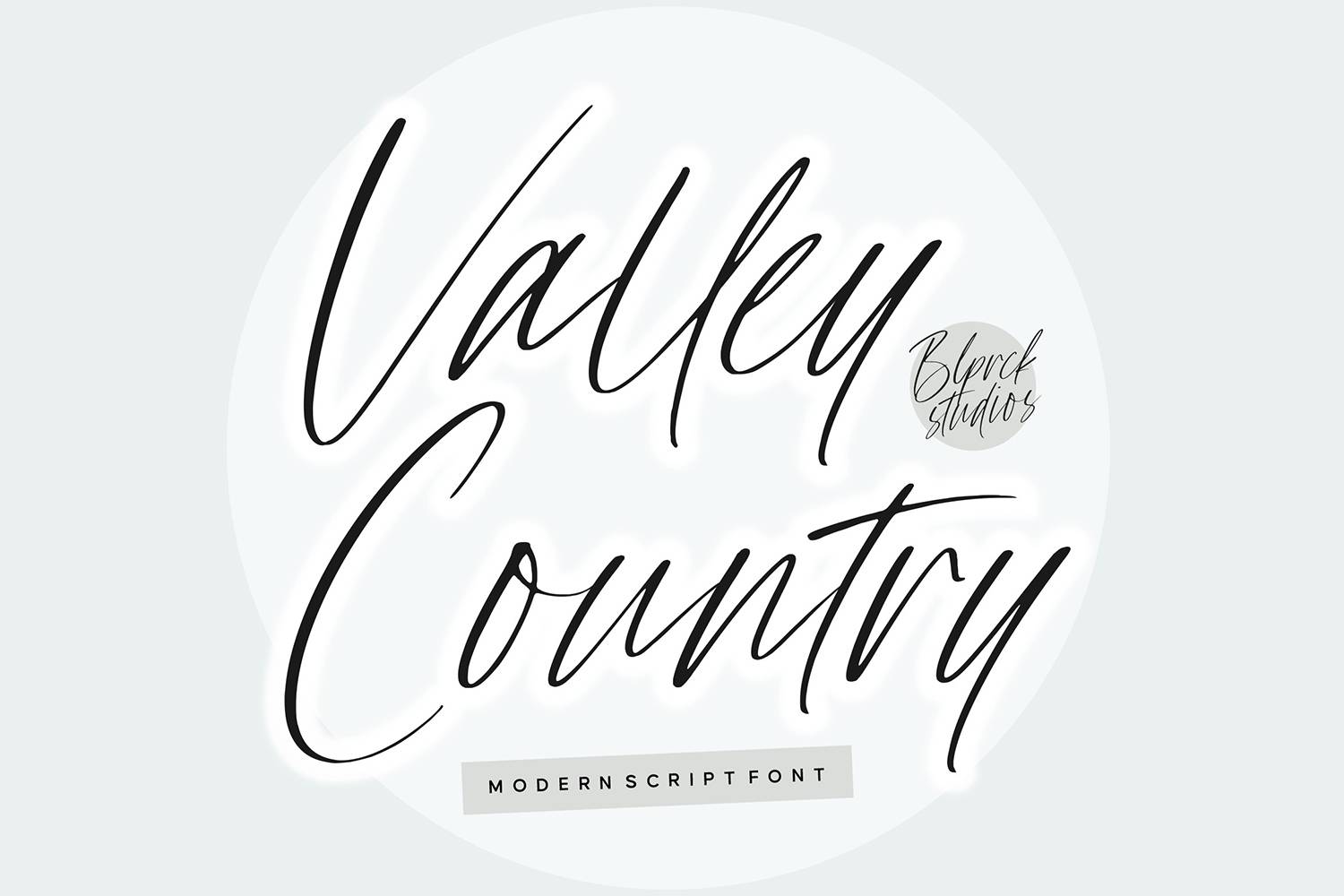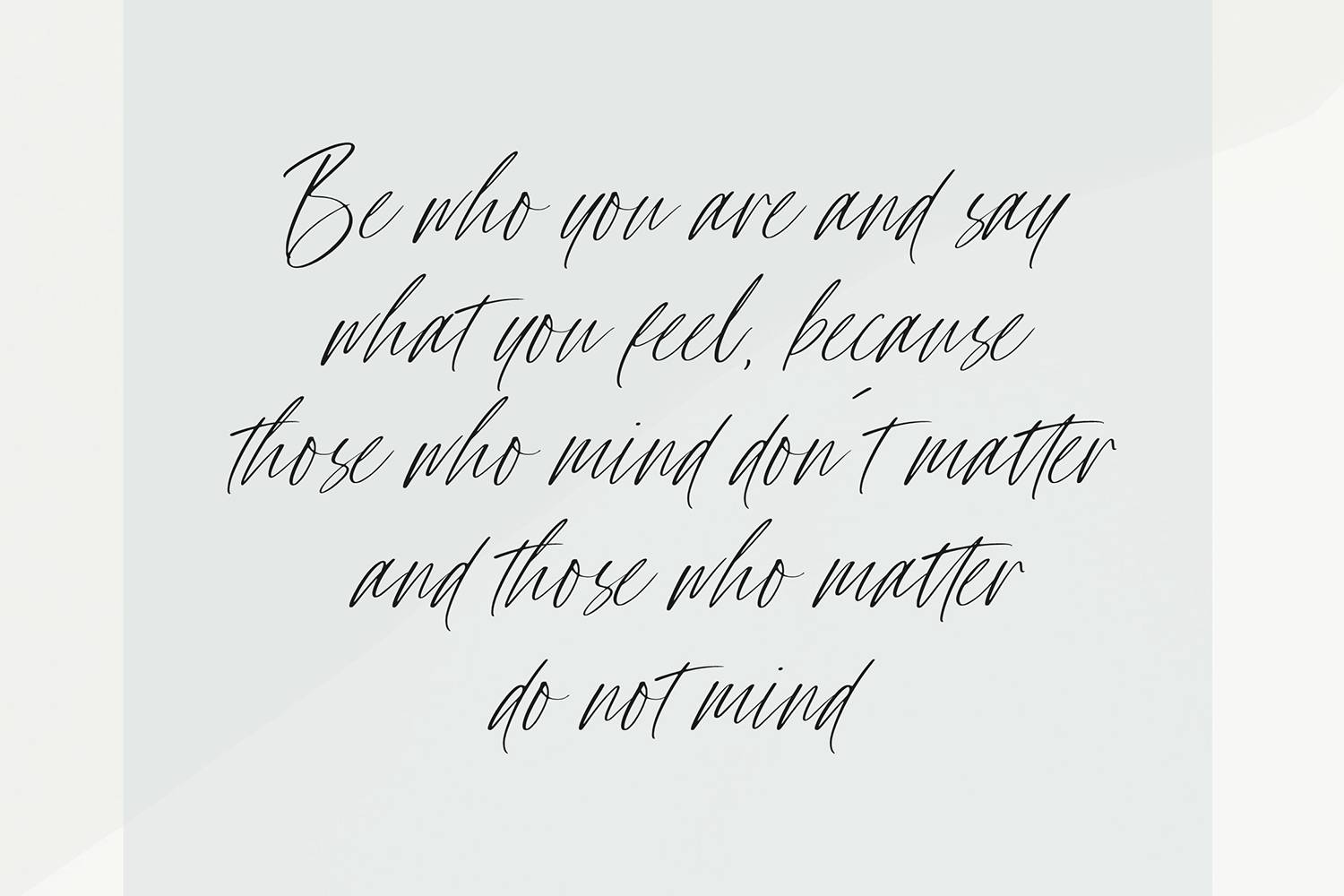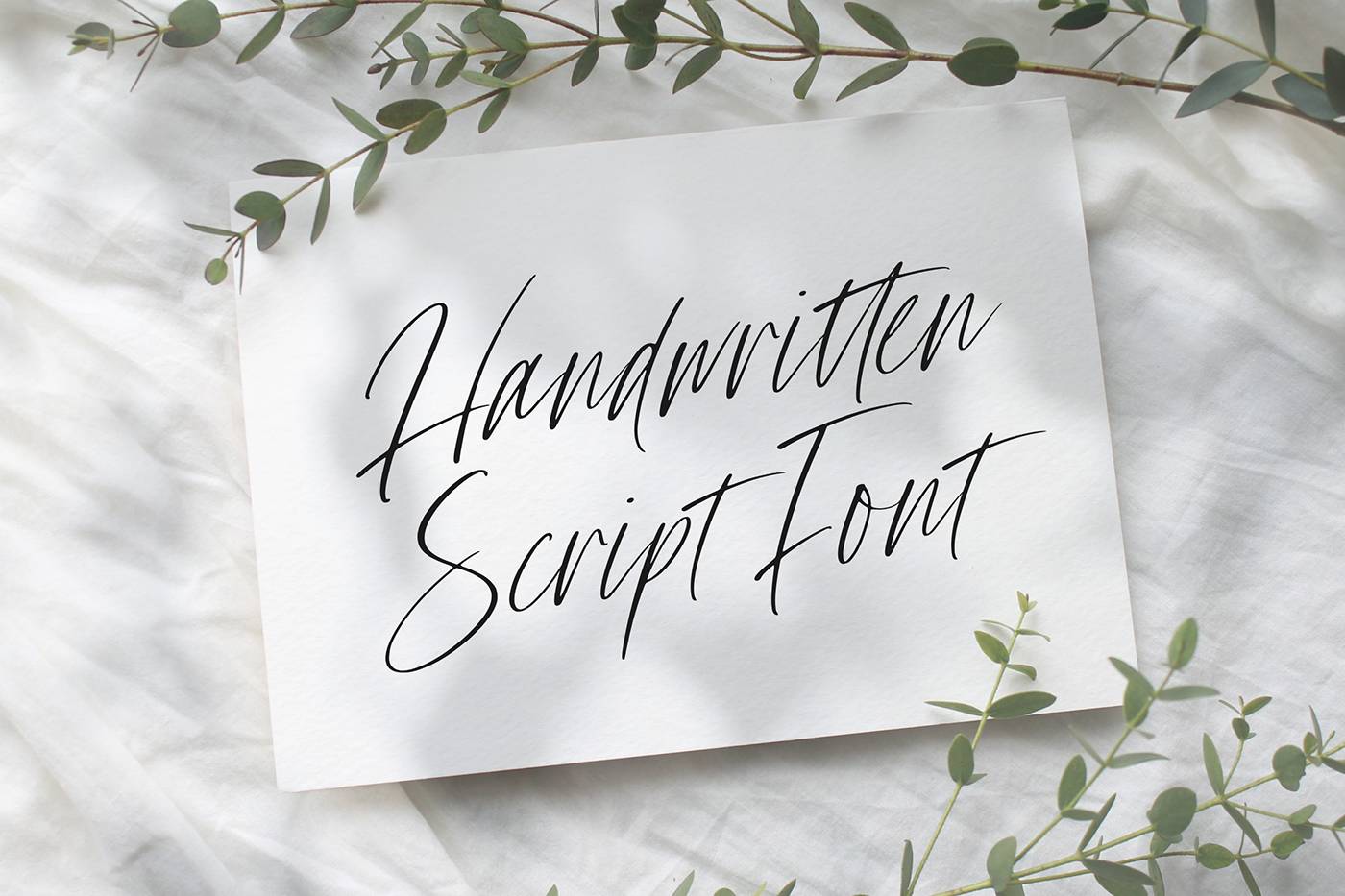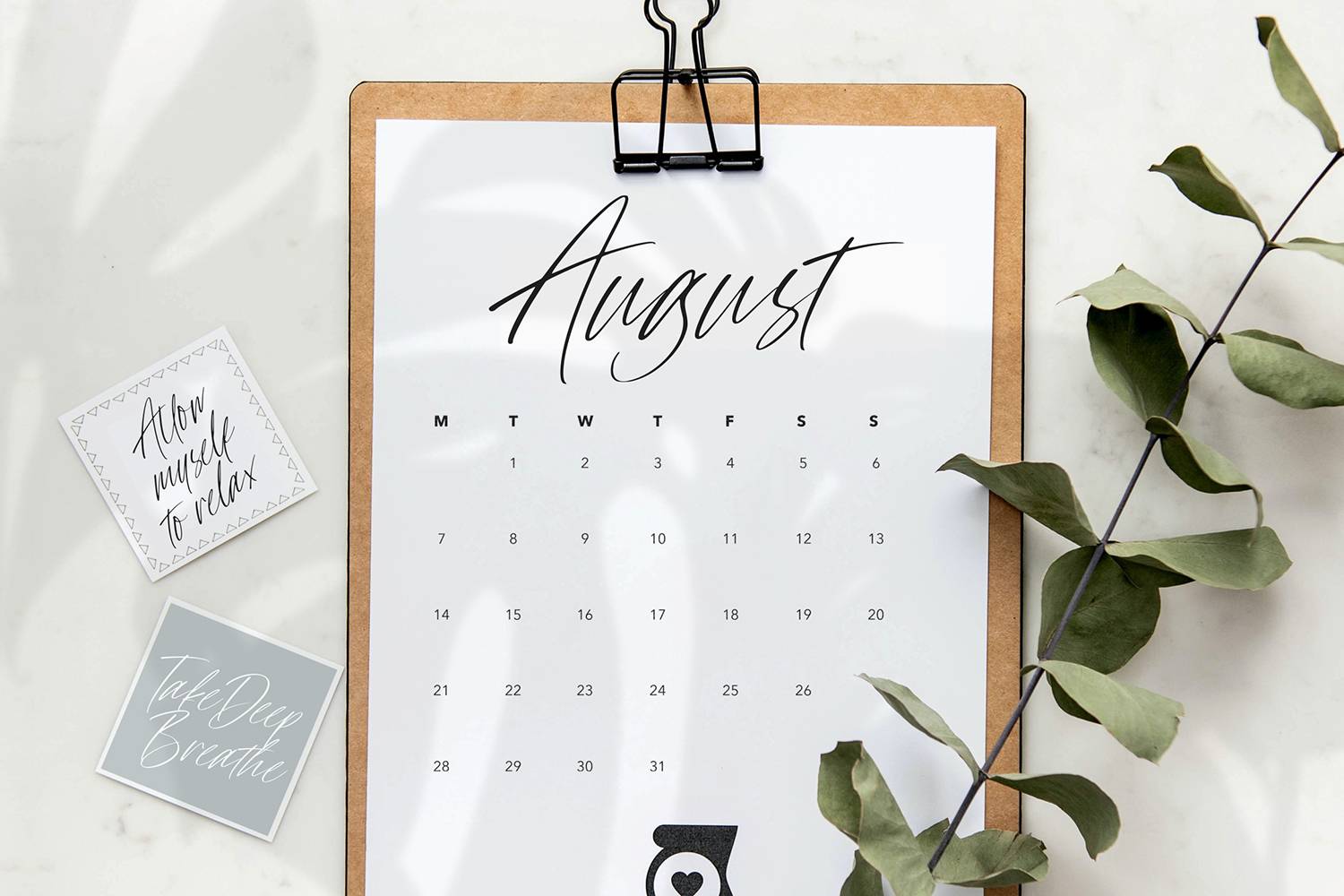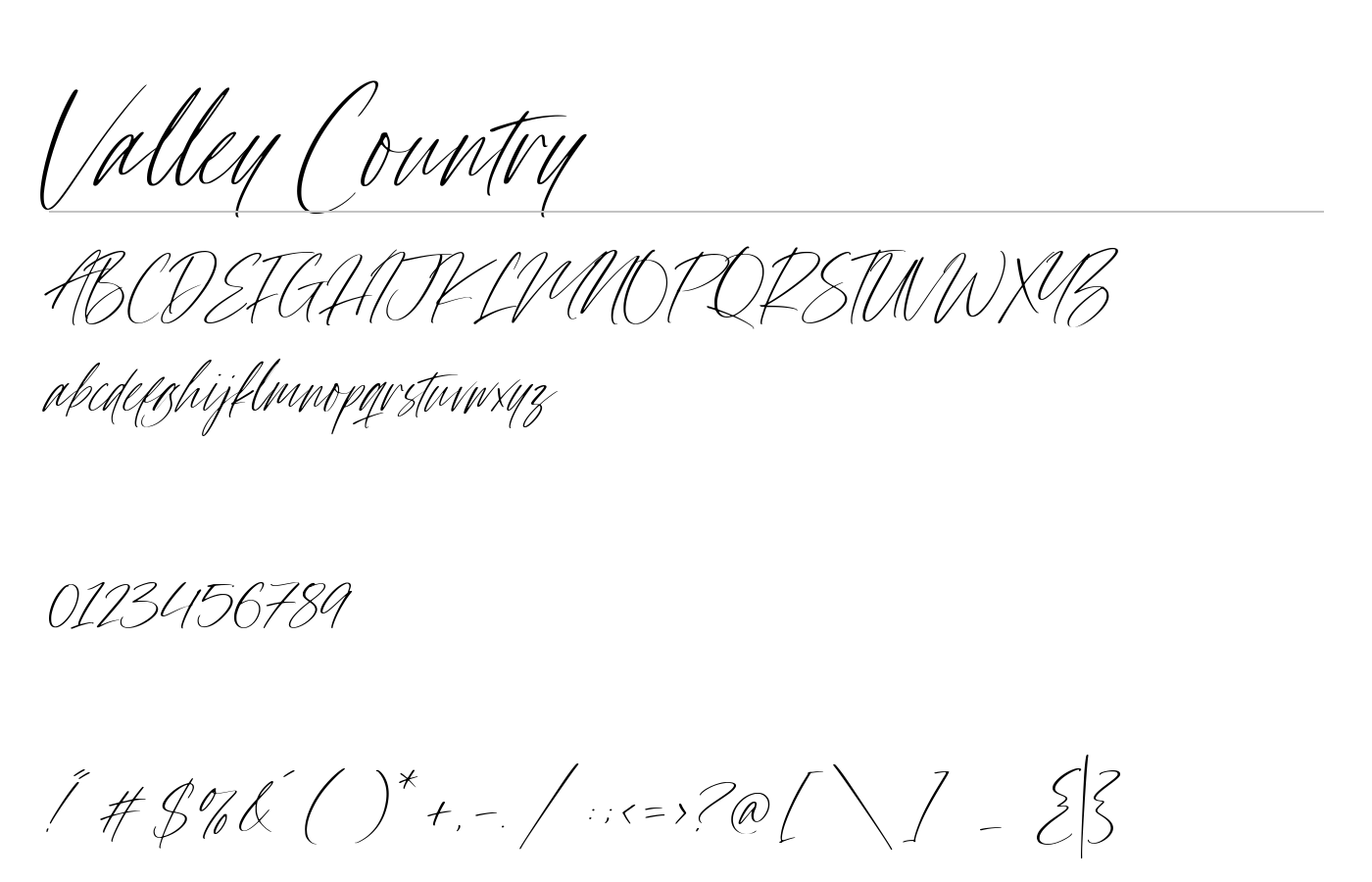
Valley Country is a delicate, handwritten script font characterized by its slender, flowing lines and elegant, slightly irregular strokes that give it a natural, personal touch. With its tall, narrow letterforms and light weight, this font exudes a refined and artistic feel, making it ideal for invitations, branding, and sophisticated editorial designs where a graceful, intimate aesthetic is desired.
Valley Country Font
About Valley Country Font